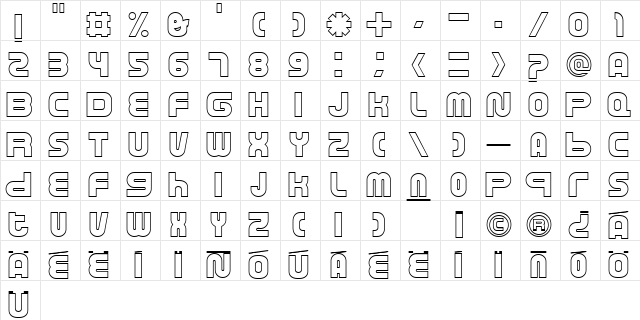
BASSEL Outline Font Preview
BASSEL Outline
BASSEL Outline Font Details
| Style | Outline |
Design Context for BASSEL Typeface
BASSEL is built around its visual character rather than neutral utility — its distinctive forms are designed to make an impression at display sizes.
Font Pairing: Pair with a clean neutral sans-serif for body copy to let BASSEL's character lead without overwhelming the composition.
Pro Tip: Use BASSEL exclusively at display sizes — it was designed to be seen, not read at length. Let a neutral companion handle body copy.